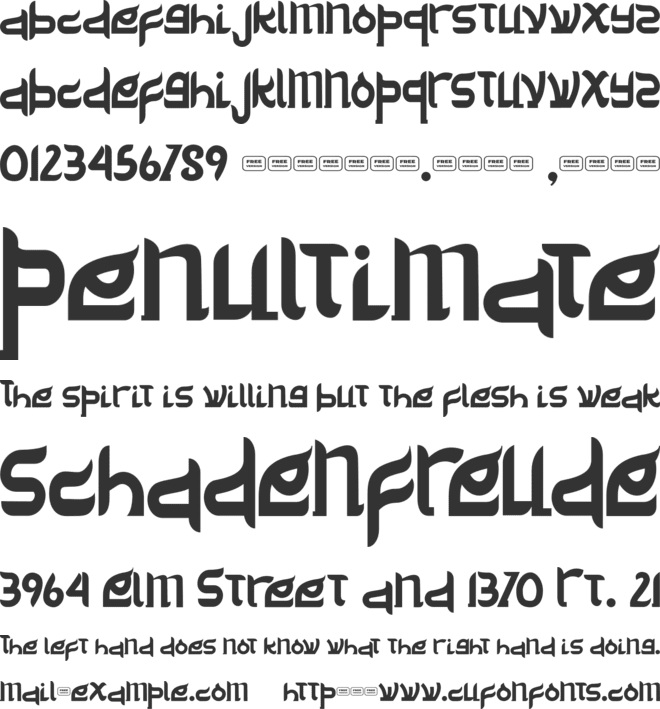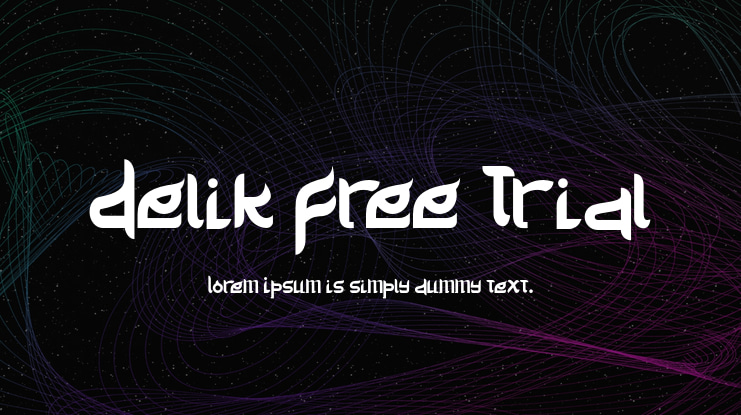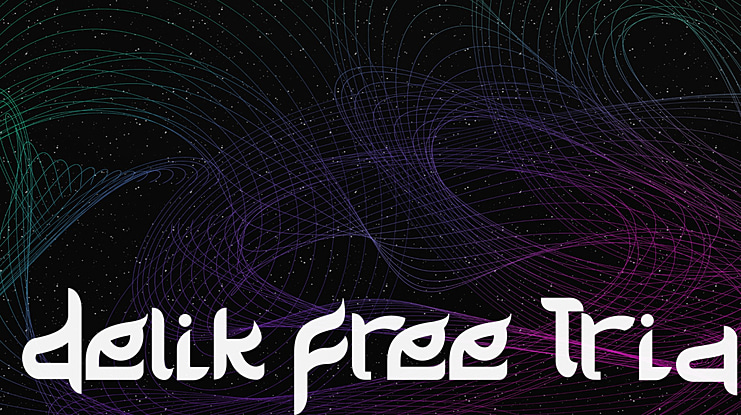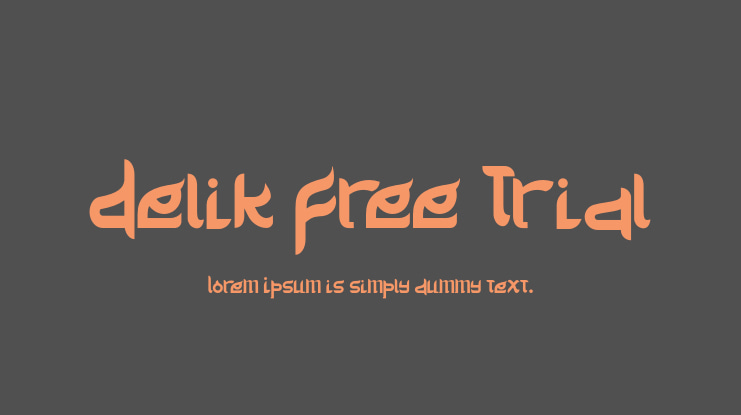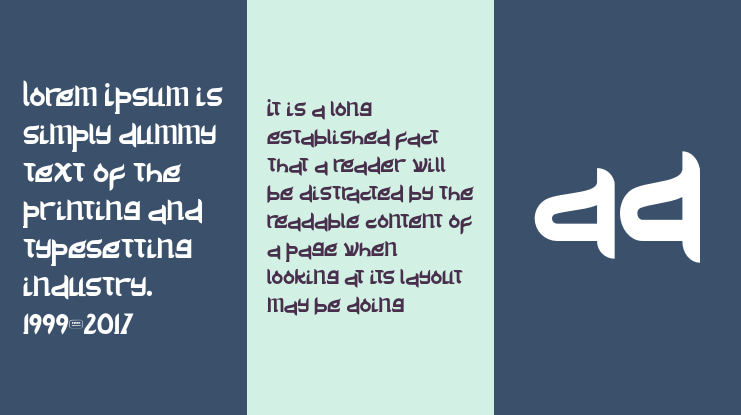
Delik Free Trial Font
Delik is an interesting display font inspired by the style and feel of Arabic.This font is suitable for branding logos, Islamic themes, Ramadhan themes, and any other projects you can think of.Full Version Download Here :https://typefactory.co/product/delik-arabic-font/https://www.creativefabrica.com/product/delik/ref/501262/